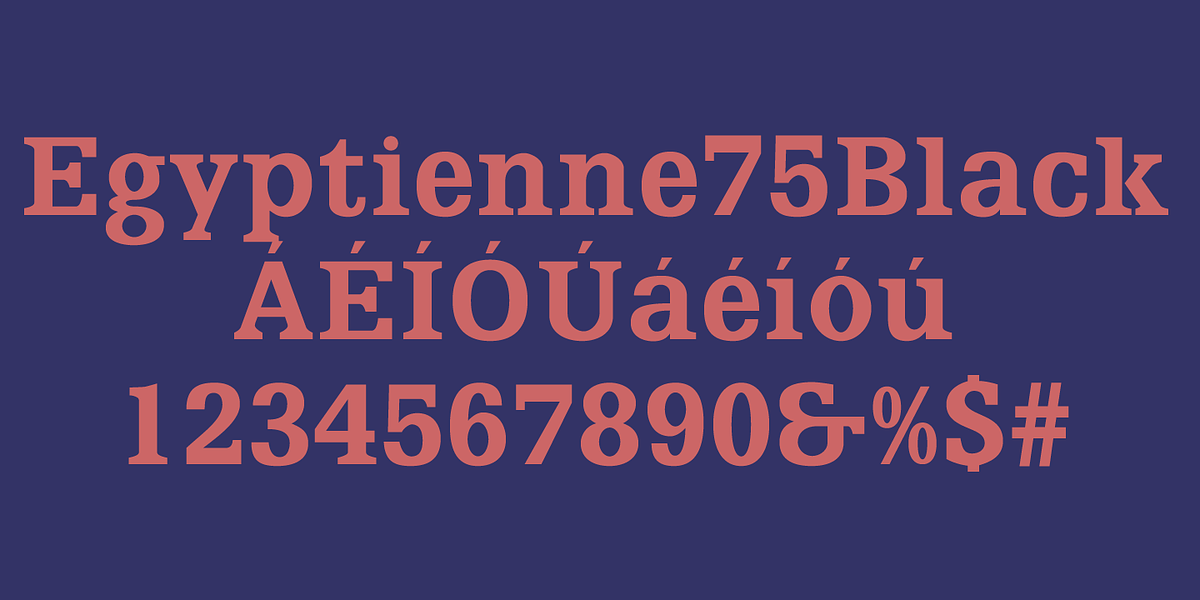
Designed by Jordan Davies Owner of Wooden Type Fonts 35 sales
Egyptienne75Black
This font is a bold serif with an Egyptian-inspired aesthetic. It's designed for use in headlines and posters where its strong presence and classic style can make a statement.